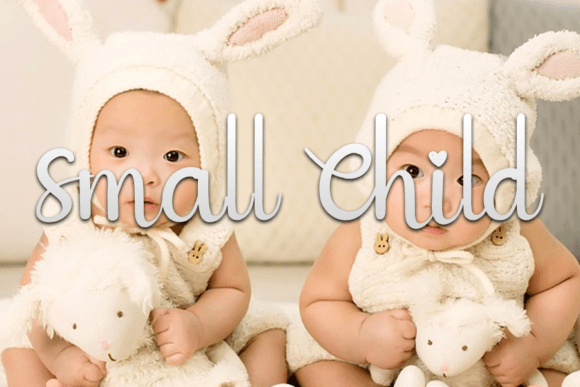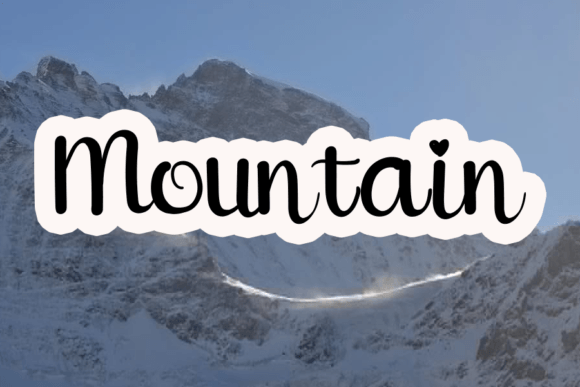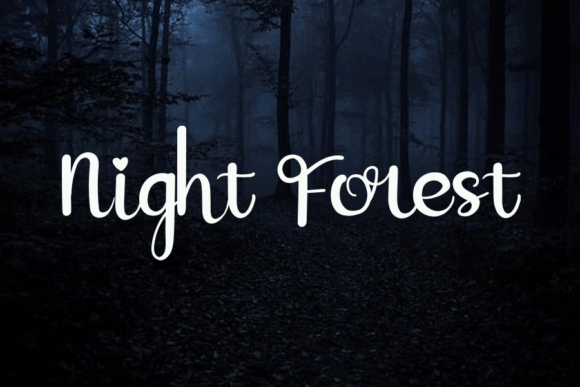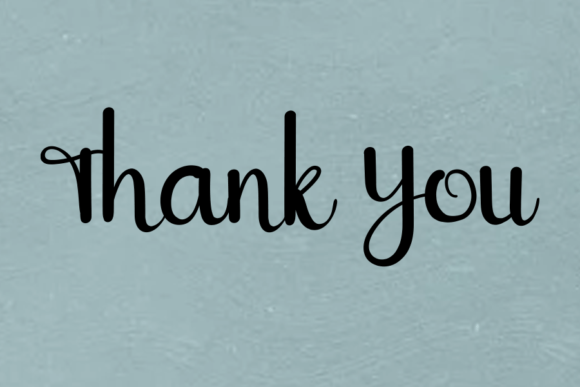
Meet Your New Favorite Font: Bunny Font
There’s nothing quite like the thrill of discovering a new font that sparks creativity and makes you feel like you’re on top of the world. You’re working on a project, and as you scroll through font options, something catches your eye – a gentle, flowing script that makes you smile. This is exactly what happens when you meet the Bunny Font, a stylish and smooth handwritten script font that’s perfect for any occasion.
Whether you’re a crafty enthusiast, a digital designer, or a presentation pro, the Bunny Font is an invaluable asset to have in your toolkit. Its versatility makes it suitable for a wide range of projects, from greeting cards to digital designs, and its friendly, approachable feel is sure to delight your audience. With the Bunny Font, you can add a touch of warmth and personality to your work, making it truly unforgettable.
Bunny Font Key Features
- Unique Characteristics: Bunny Font features a playful, hand-drawn design with intricate details and textures, giving it a distinctive and whimsical feel.
Bunny Font Review
Overall, I’m impressed with the whimsical charm of the Bunny Font. ✨ The rounded shapes and endearing character design make it a great choice for playful projects, like children’s books or cartoon-style graphics. It’s also versatile enough to work well in digital displays, like mobile apps or websites.
- Unique and distinctive character design, perfect for adding a touch of personality to your projects ✨
- Highly legible and easy to read, even in smaller font sizes ✨
- Supports a wide range of languages, making it a great choice for international projects ✨
- May not be suitable for formal or professional projects, due to its playful and childish tone ⚠️
- Lacks a bold or condensed weight, which may limit its use in certain design contexts ⚠️
- Not ideal for small text or body copy, due to its large x-height and rounded shape ⚠️
Overall, I think the Bunny Font is a great addition to any designer’s toolkit. While it may have some limitations, its unique charm and versatility make it a great choice for a wide range of projects.
For the most out of Bunny Font, use it in designs that require a playful, whimsical feel, such as children’s book illustrations, Easter-themed graphics, or cartoon-style logos. Adjust font size and color to create visual interest and balance.